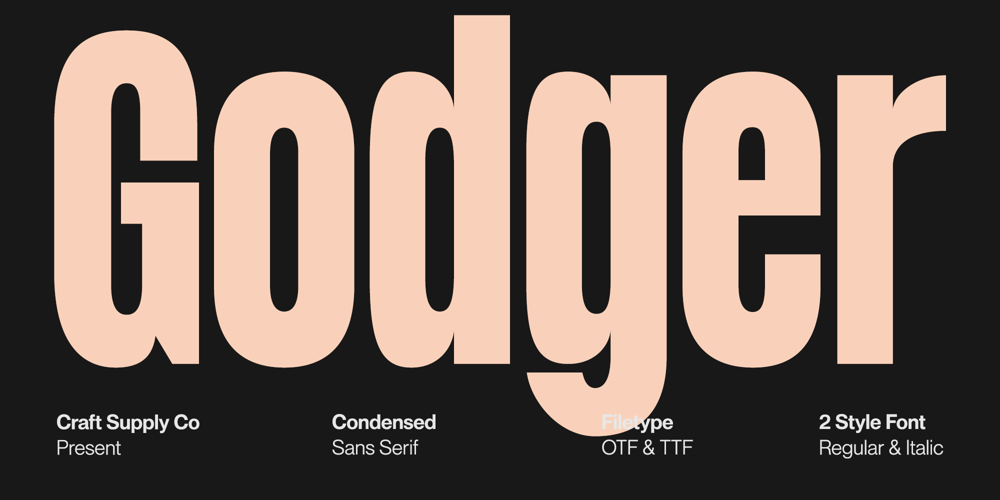
Godger
Godger font
Godger Font Family was designed by Trio Nazzar Saputra, Wahyu Hadi Yuana and published by Craft Supply Co. Godger contains 5 styles and family package options. Godger Condensed Sans Serif: Boldness Redefined Step into the bold world of Godger, where strength and simplicity converge. This bold, masculine font is a powerhouse, built for strong, memorable branding. Its condensed form is not only space-efficient but also packs a punch, perfect for headlines that demand attention.Masculine and Commanding Godger’s bold, condensed letters exude a sense of command, making it a go-to for titles needing a masculine touch. Each letter is crafted for high impact, ensuring your words aren’t just read, but felt. This font doesn’t whisper; it shouts with a clear, authoritative voice.